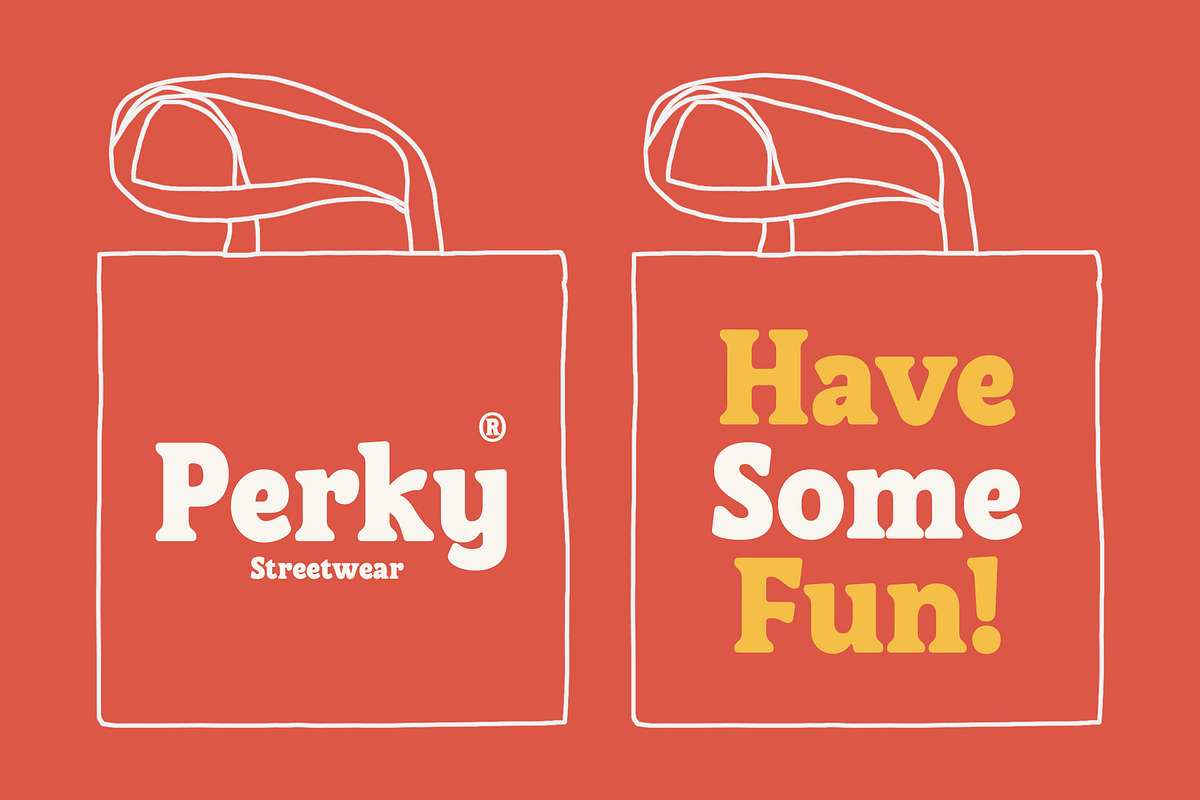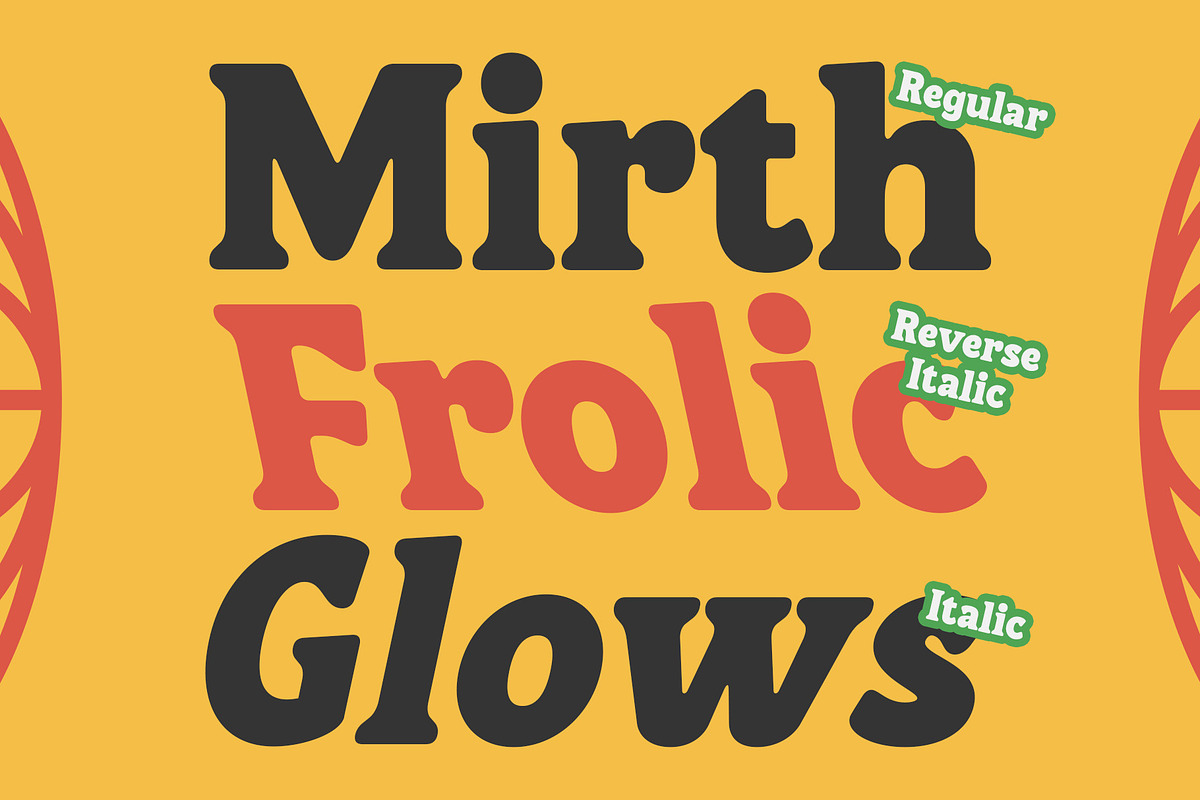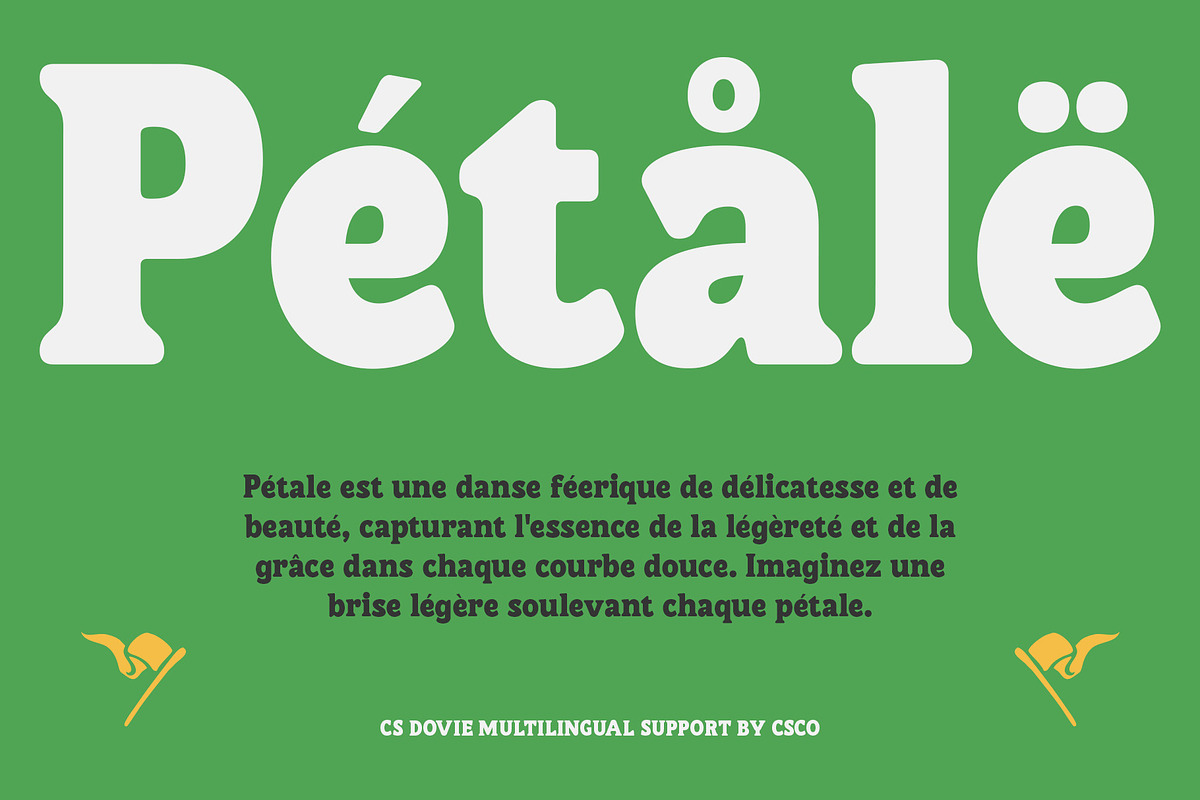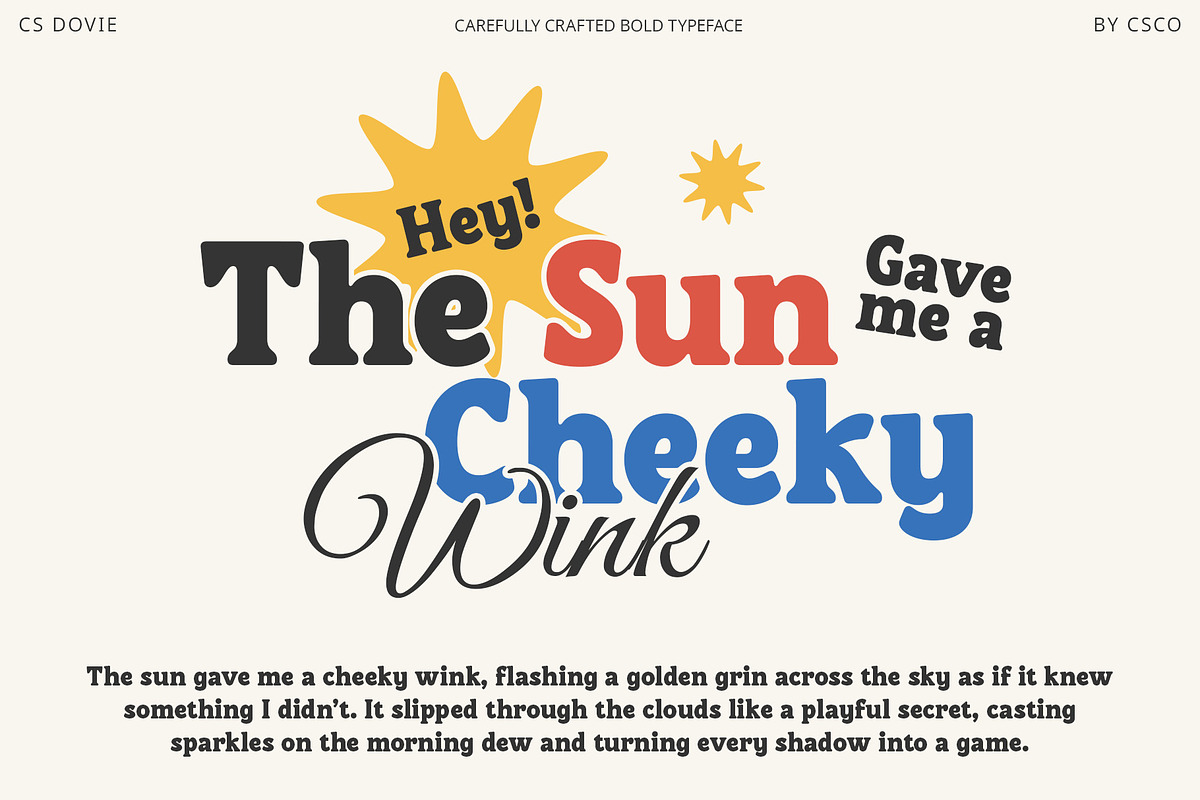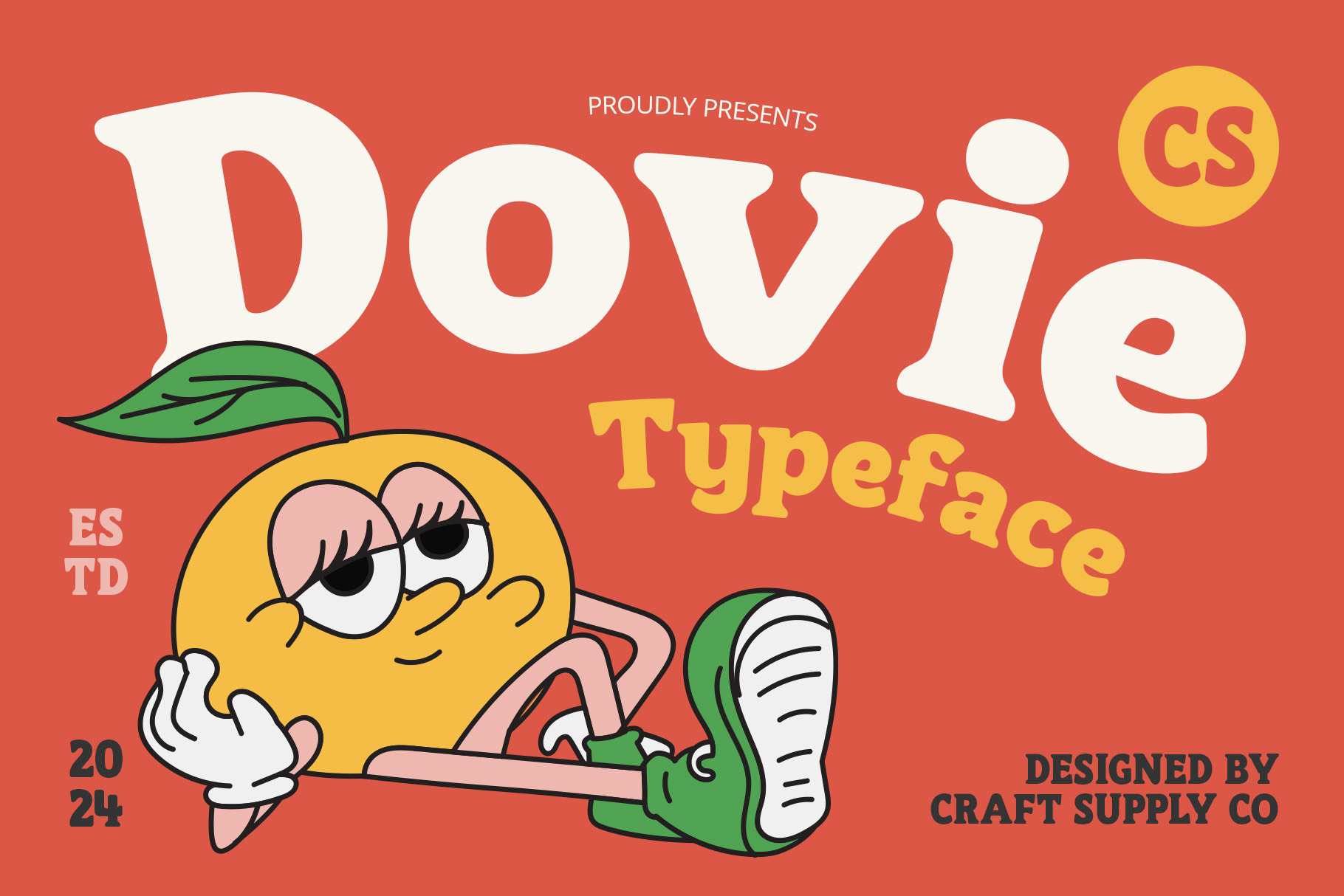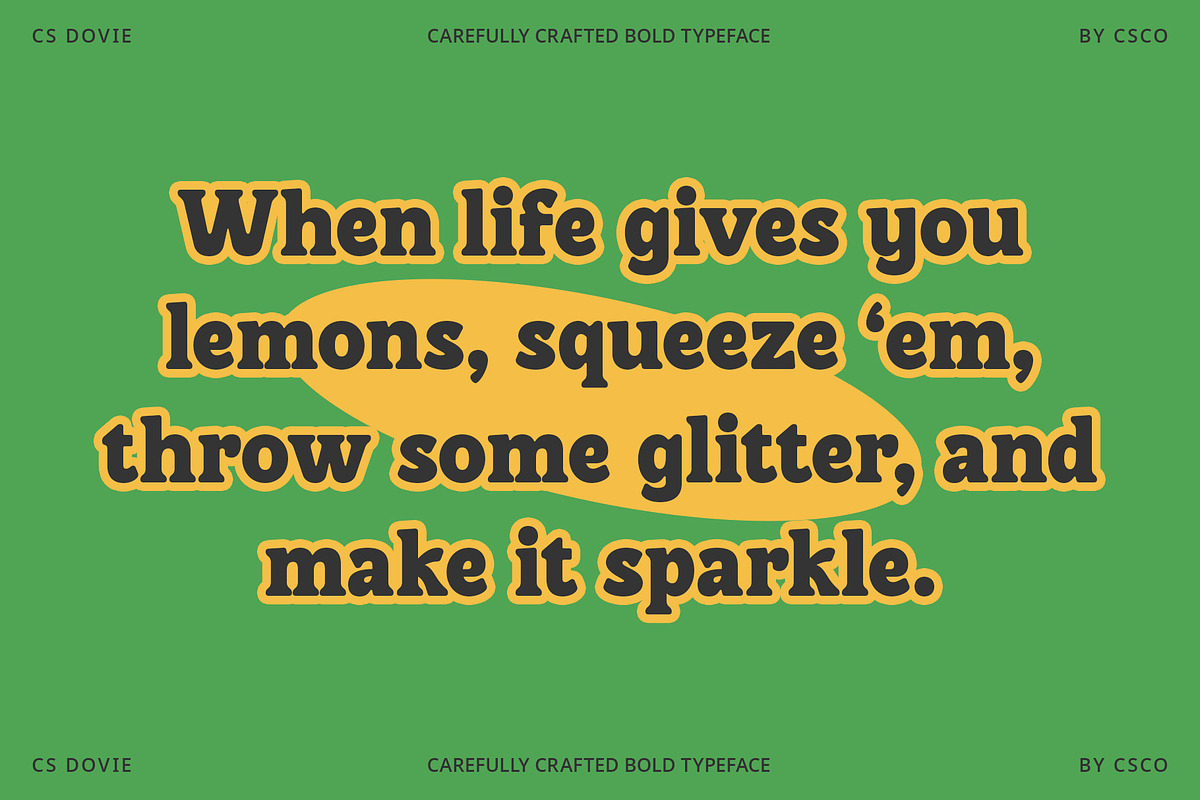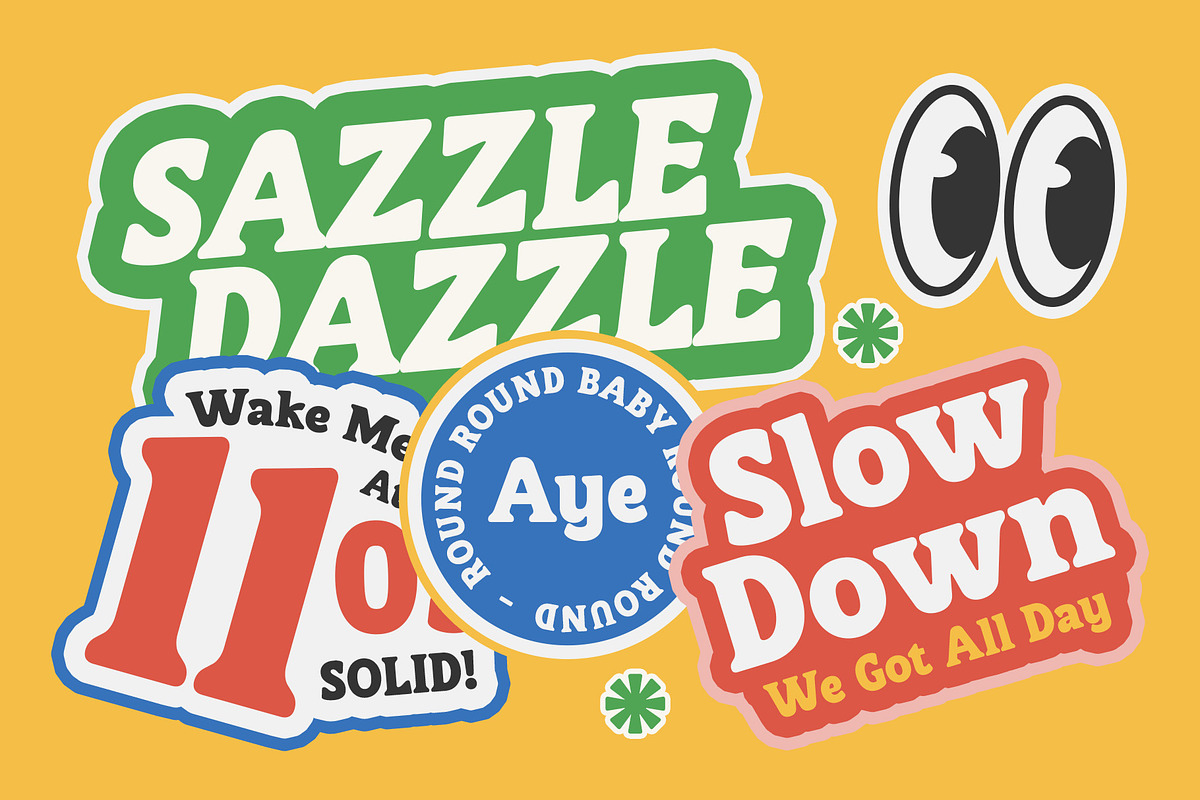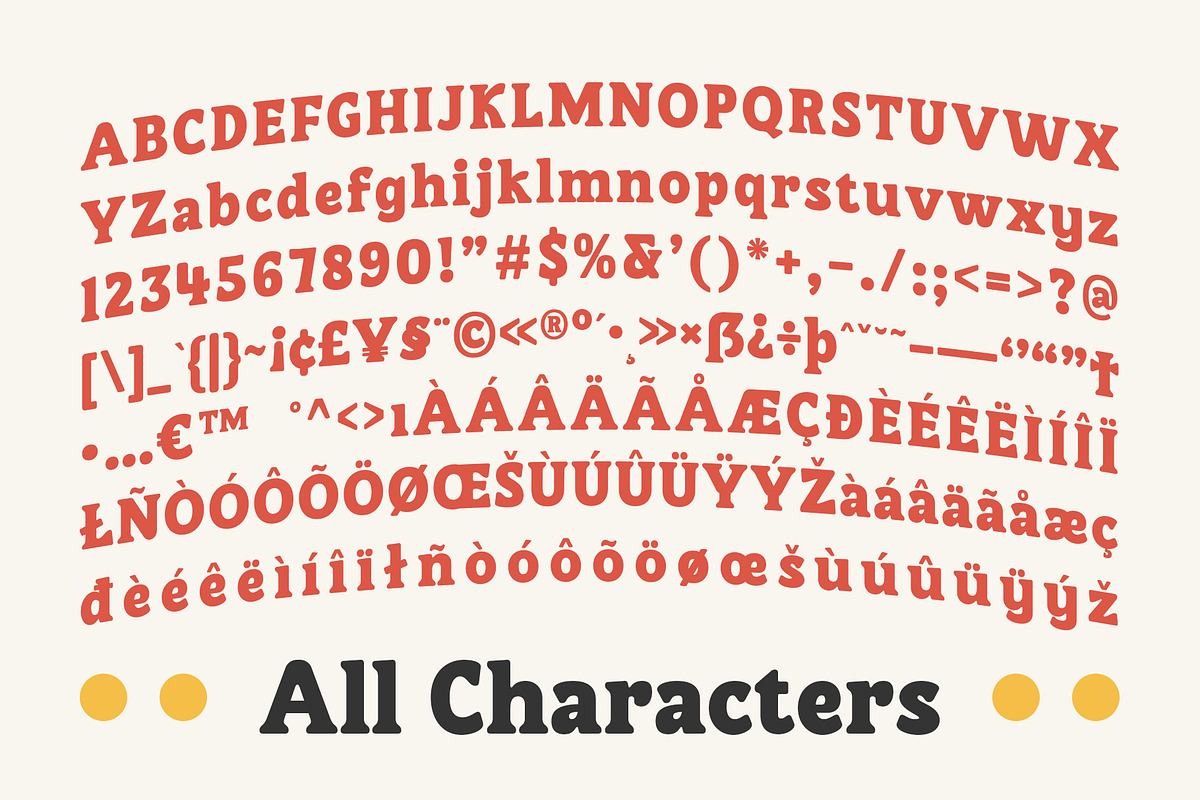
CS Dovie – Retro Font
CS Dovie Font: Bold 90s Retro Serif Font
Strong Serif Design with 90s Style CS Dovie is a bold serif font inspired by the distinctive style of the 1990s. Characterized by thick lines and striking shapes, this font blends retro elements to evoke a sense of nostalgia. The prominent serifs and sharp corners enhance its vintage appeal, creating a design that captures the essence of the past.
Distinctive Retro Features The font’s decorative details and solid forms are reminiscent of 90s typography, giving CS Dovie a strong, characterful presence. Its design elements, including pronounced serifs and dynamic shapes, help revive the classic atmosphere of the decade, making it perfect for projects that need a bold retro touch.
Ideal for Nostalgic Designs Perfect for posters, logos, and promotional materials, CS Dovie excels in designs that aim to evoke a retro feel. Its impactful look and nostalgic charm make it a standout choice for creating memorable visuals with a classic 90s flair.
Versatile for Various Retro Applications CS Dovie’s blend of bold design and vintage detail offers versatility across different creative projects. Whether you’re designing retro-themed branding or eye-catching promotional materials, this font delivers a classic, impactful appearance that celebrates the iconic style of the 1990s.
- CS Dovie Regular
- CS Dovie Italic
- CS Dovie Reverse Italic